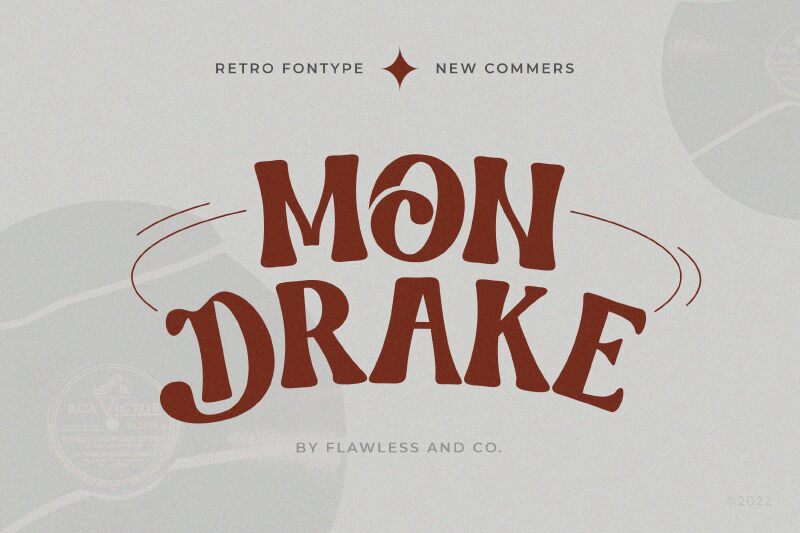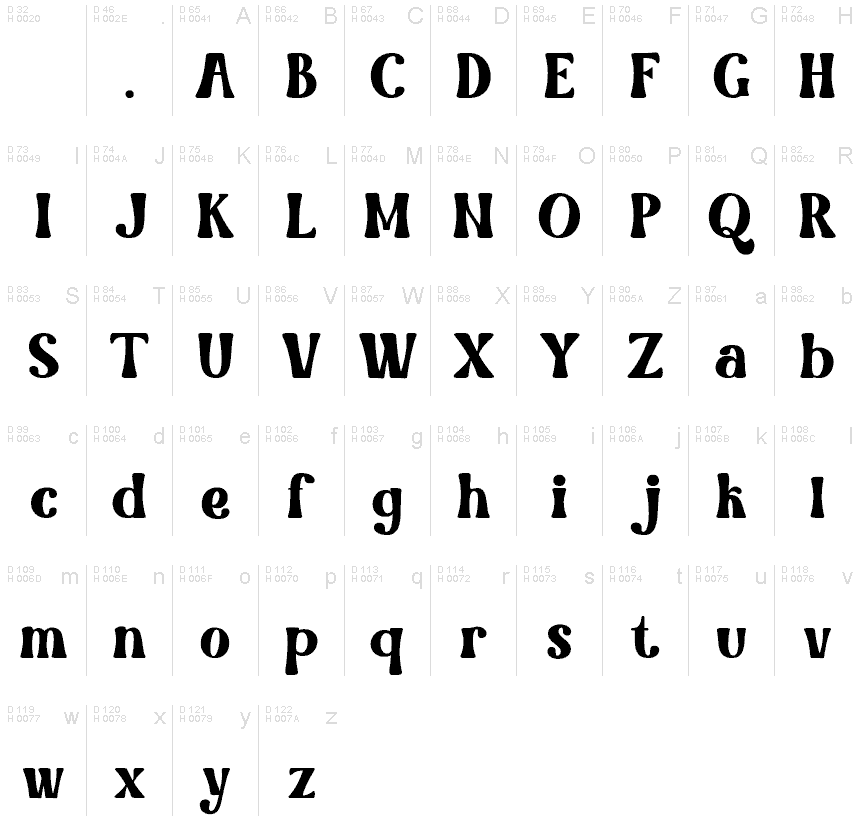
Mondrake Regular
Mondrake font, designed by Achmad Yani of Flawless and Co., is a bold display font with a unique retro style. Its expressive nature comes across through decorative touches that are widely spread across the typeface and guarantee its substantial presence. The designer clearly took inspiration from the retro fonts with freeform serifs which were slightly modernized for our time.
While the Mondrake font finds a place in lots of artistic projects such as logotypes, product labels, magazine titles, posters and ad banners, it can also be put to good use on personal items including stationery designs and signatures. Other potential uses include movie titles, social media posts, book covers and signage usage.